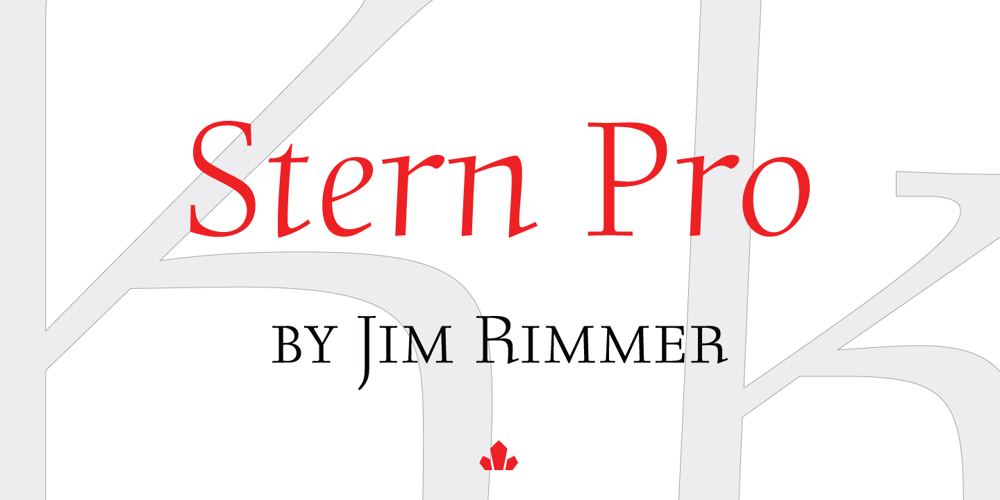
Stern Pro Font Family was designed by Jim Rimmer and published by Canada Type. Stern Pro contains 1 styles and family package options. Originally released in 2008, Stern is the only typeface to be produced and marketed simultaneously in digital and metal. In the twenty-first century, no less. It is also the last typeface Jim Rimmer ever completed. The process he used for its design and manufacture is the stuff of legend, and can be seen in the Richard Kegler documentary, Making Faces: Metal Type in the 21st Century. The design is a delicate upright italic named in memory of Chris Stern, the late artist and printer from Washington State. In 2013, Canada Type remastered and expanded the design’s offerings to a glyphset of over 1200 characters, updated programming. Now Stern Pro includes the following features: – Small caps. – Caps-to-small-caps functionality, useful for setting mid-height caps alongside lowercase. – Tall caps. – Historical forms. – A wide variety of alternates for both uppercase and lowercase letters. – Plenty of ligatures. – Seven types of numerals, enclosers, cojoiners and currency symbols. – Automatic fractions. – A complete set of lowercase ordinals, from a to z. – Case-sensitive forms. – Language support for Greek and over 50 Latin languages. 20% of this font’s revenues will be donated to the Canada Type Scholarship Fund, supporting higher typography education in Canada.